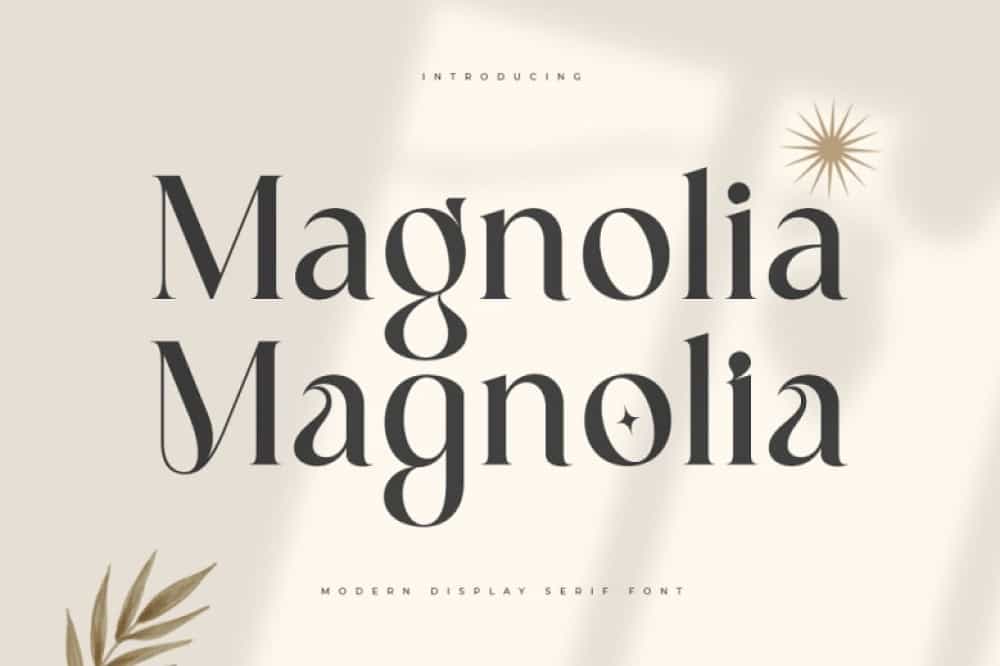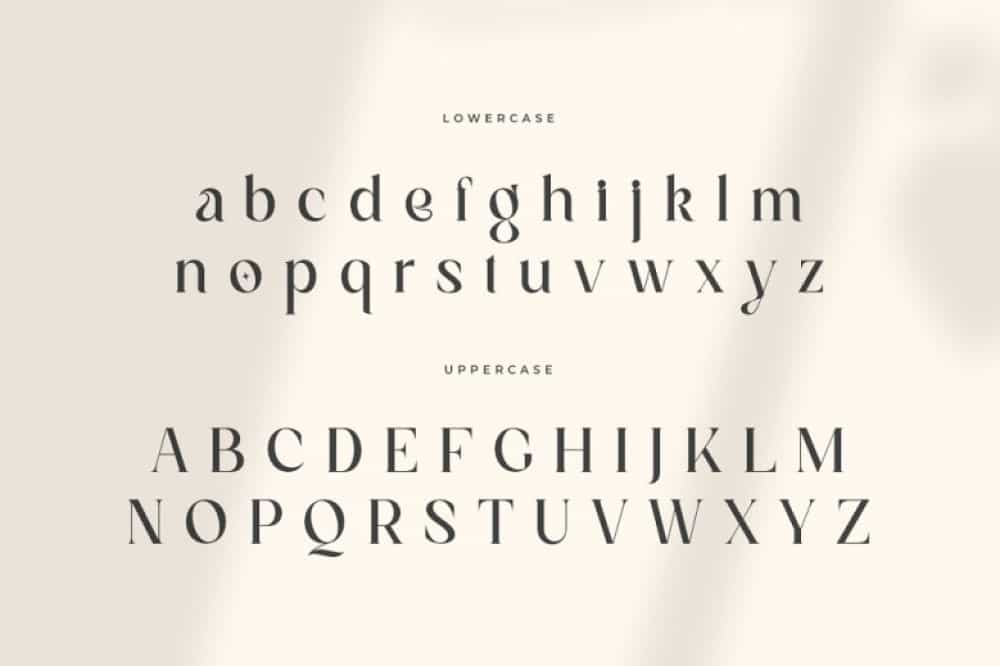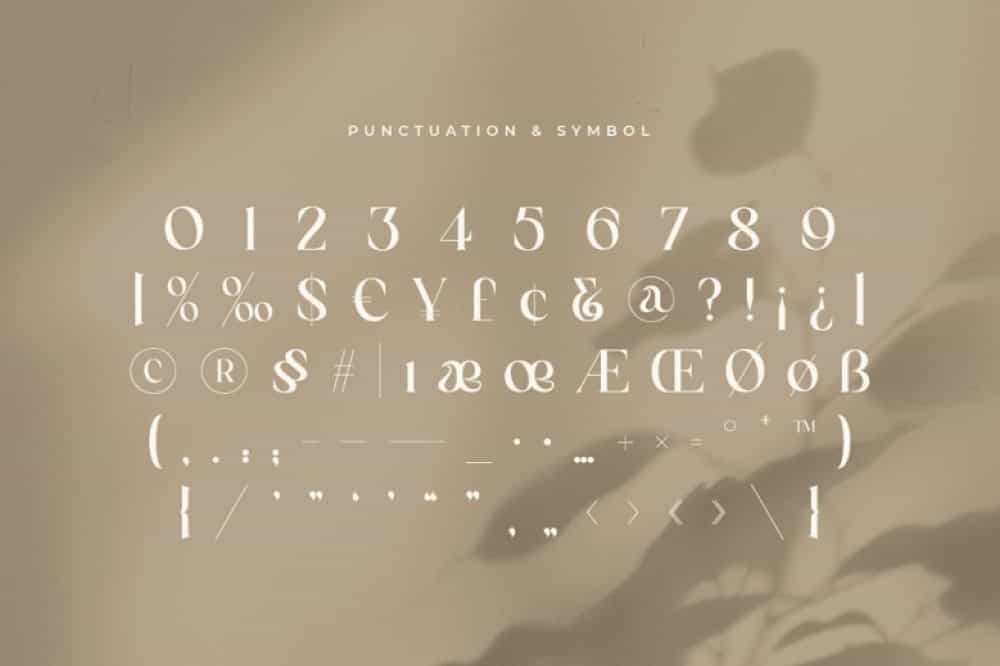
Magnolia is a modern display serif font with a moderate contrast suitable for the branding projects, logo purposes, wedding designs, social media and ads, product packaging and designing, product labels, photographs, watermarks, invitations, stationery and any other project that requires better readability.